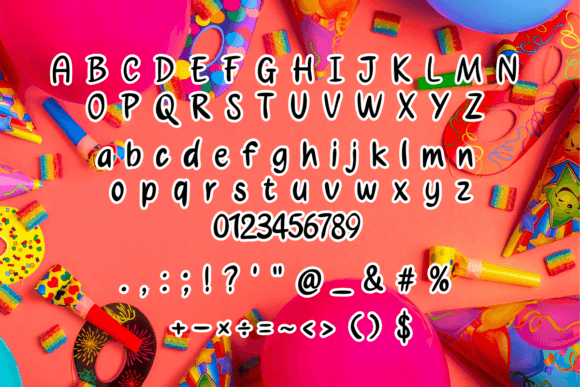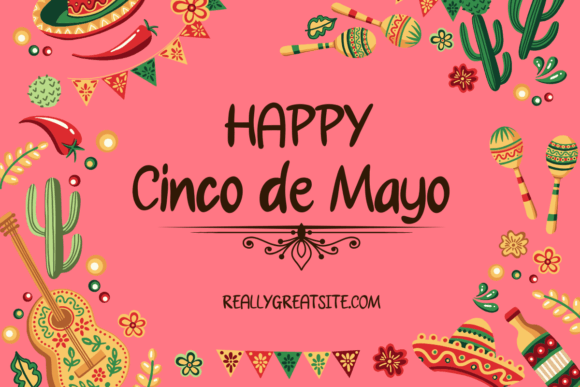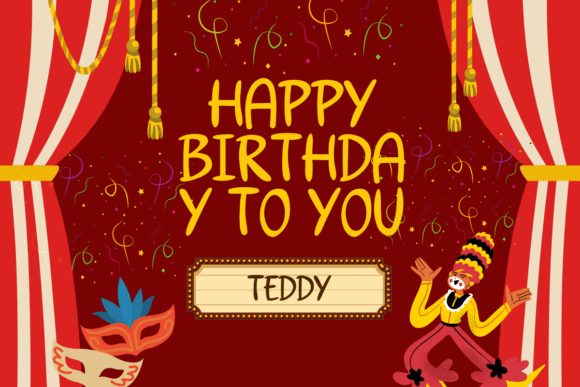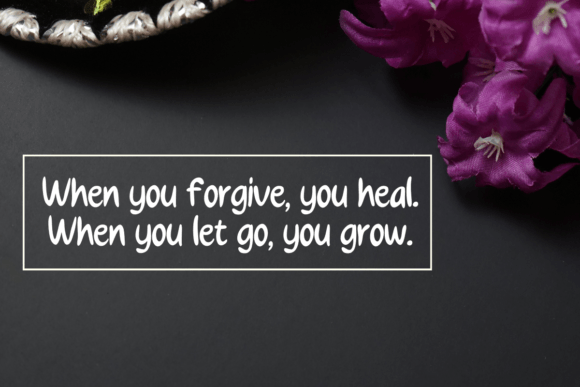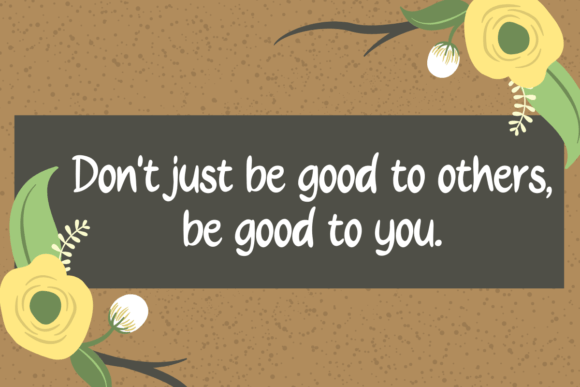
Celebrate with Style: The Versatility of Cinco De Mayo Font
Cinco De Mayo, a vibrant and festive holiday, is just around the corner, and what better way to join in the celebration than with a unique and eye-catching font? Introducing the Cinco De Mayo font, a beautiful handwritten font that’s perfect for adding a personal touch to your designs. In this article, we’ll explore the versatility of this delightful font and how you can use it to create stunning designs for various occasions.
What is Cinco De Mayo Font?
The Cinco De Mayo font is a handwritten font, carefully crafted to bring a touch of warmth and personality to your designs. Its unique, cursive style is reminiscent of traditional Mexican art, making it an ideal choice for Cinco De Mayo-themed projects. However, its versatility extends far beyond this single celebration, allowing you to use it for a wide range of creative endeavors.
Uses for Cinco De Mayo Font
So, where can you use this fantastic font? The possibilities are endless! Here are some ideas to get you started:
- Note-taking and journaling: Add a personal touch to your notes and diary entries with the Cinco De Mayo font. Its handwritten style makes it perfect for jotting down thoughts, ideas, and inspiration.
- Greeting cards and invitations: Create beautiful, one-of-a-kind greeting cards and invitations for special occasions like birthdays, weddings, and holidays.
- Banners and signs: Use the Cinco De Mayo font to create eye-catching banners and signs for parties, events, and celebrations.
- Social media posts: Add a touch of personality to your social media posts, making them stand out from the crowd.
- Mugs, cards, and shirts: Design unique and personalized products, such as mugs, cards, and shirts, that make perfect gifts or promotional items.
- Stationery and craft projects: Incorporate the Cinco De Mayo font into your stationery and craft projects, such as scrapbooking, paper crafting, and DIY home decor.
Why Choose Cinco De Mayo Font?
So, what makes the Cinco De Mayo font so special? Here are just a few reasons why designers and crafters love it:
- Unique and eye-catching: The Cinco De Mayo font’s handwritten style sets it apart from more traditional fonts, making it perfect for designs that need a personal touch.
- Versatile: As we’ve seen, this font can be used for a wide range of projects, from notes and journals to banners and social media posts.
- Easy to read: Despite its decorative style, the Cinco De Mayo font is surprisingly easy to read, making it perfect for both digital and print designs.
Tips for Using Cinco De Mayo Font
To get the most out of the Cinco De Mayo font, here are a few tips to keep in mind:
- Pair with complementary fonts: Combine the Cinco De Mayo font with other fonts to create visually appealing and balanced designs.
- Experiment with colors: The Cinco De Mayo font looks great in a range of colors, so don’t be afraid to experiment and find the perfect hue for your design.
- Use it sparingly: While the Cinco De Mayo font is beautiful, it can be overwhelming if overused. Use it sparingly to add emphasis and personality to your designs.
The Cinco De Mayo font is a versatile and beautiful addition to any designer’s toolkit. Its unique, handwritten style makes it perfect for a wide range of projects, from notes and journals to banners and social media posts. Whether you’re a seasoned designer or a crafty DIY enthusiast, this font is sure to bring a touch of personality and style to your creations. So why not give it a try and see the amazing things you can create with the Cinco De Mayo font?